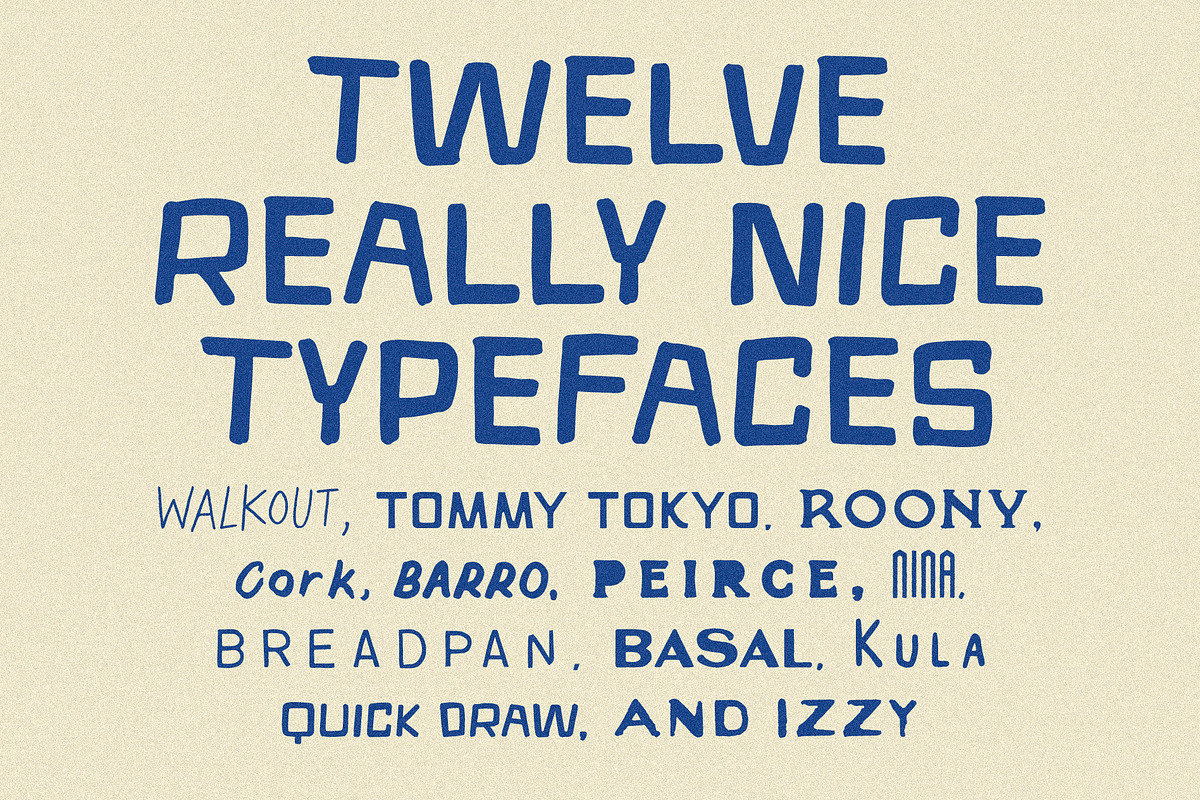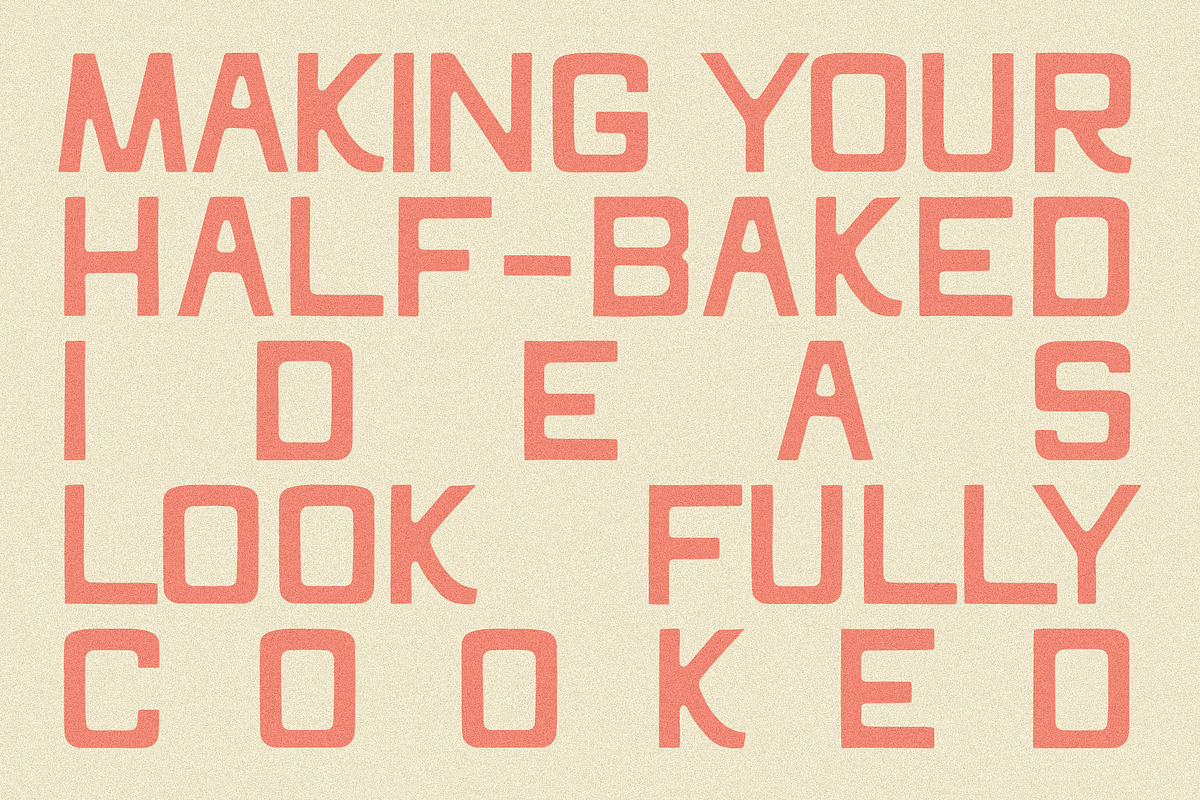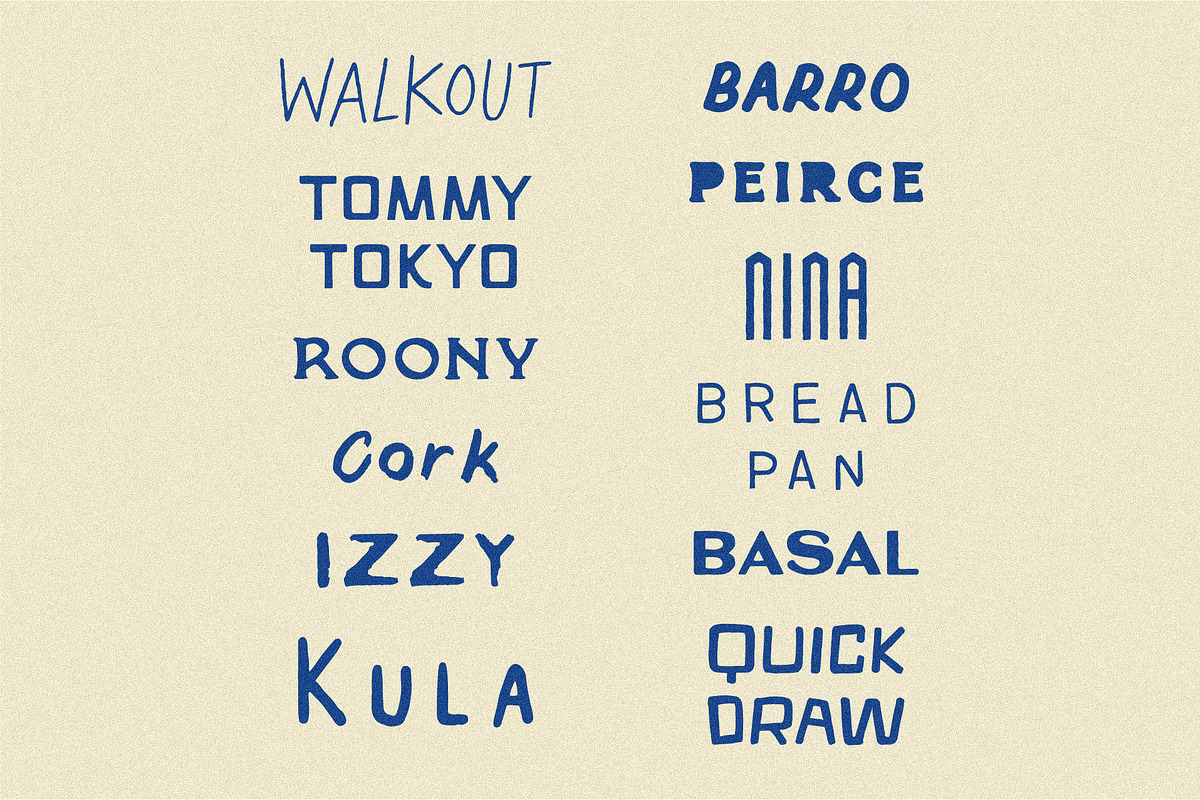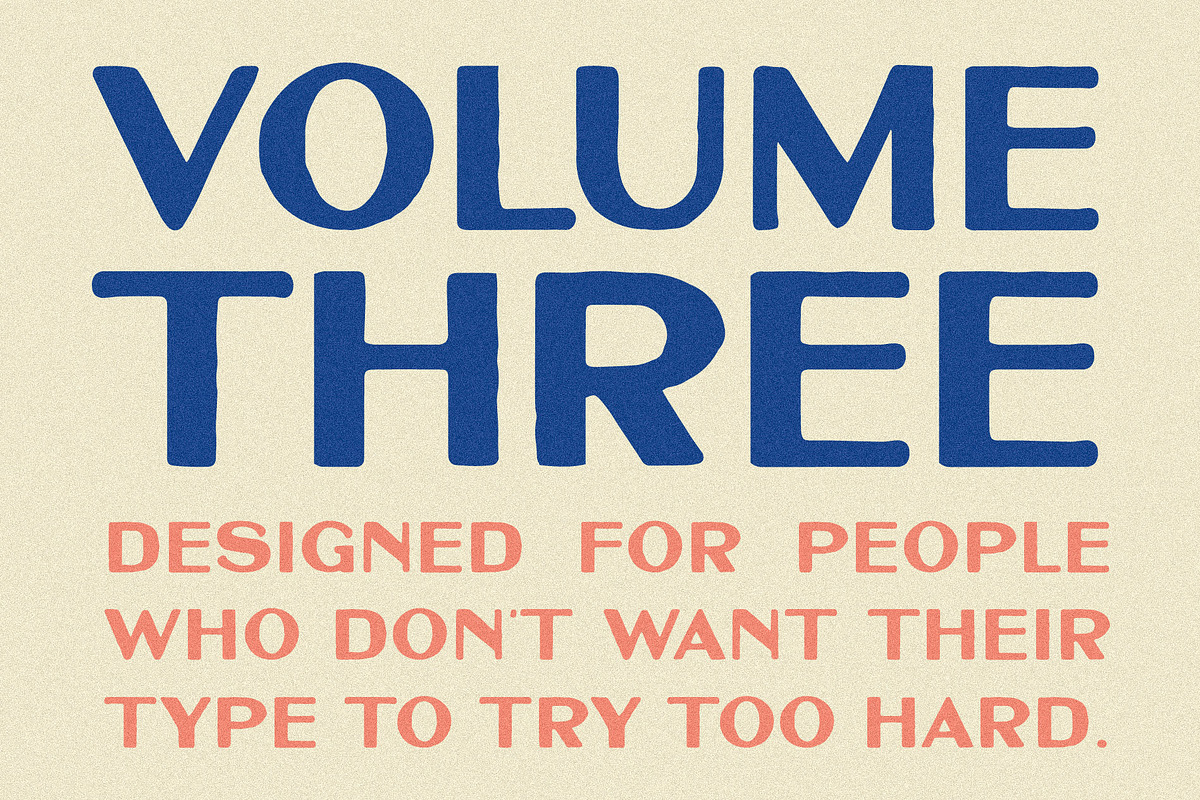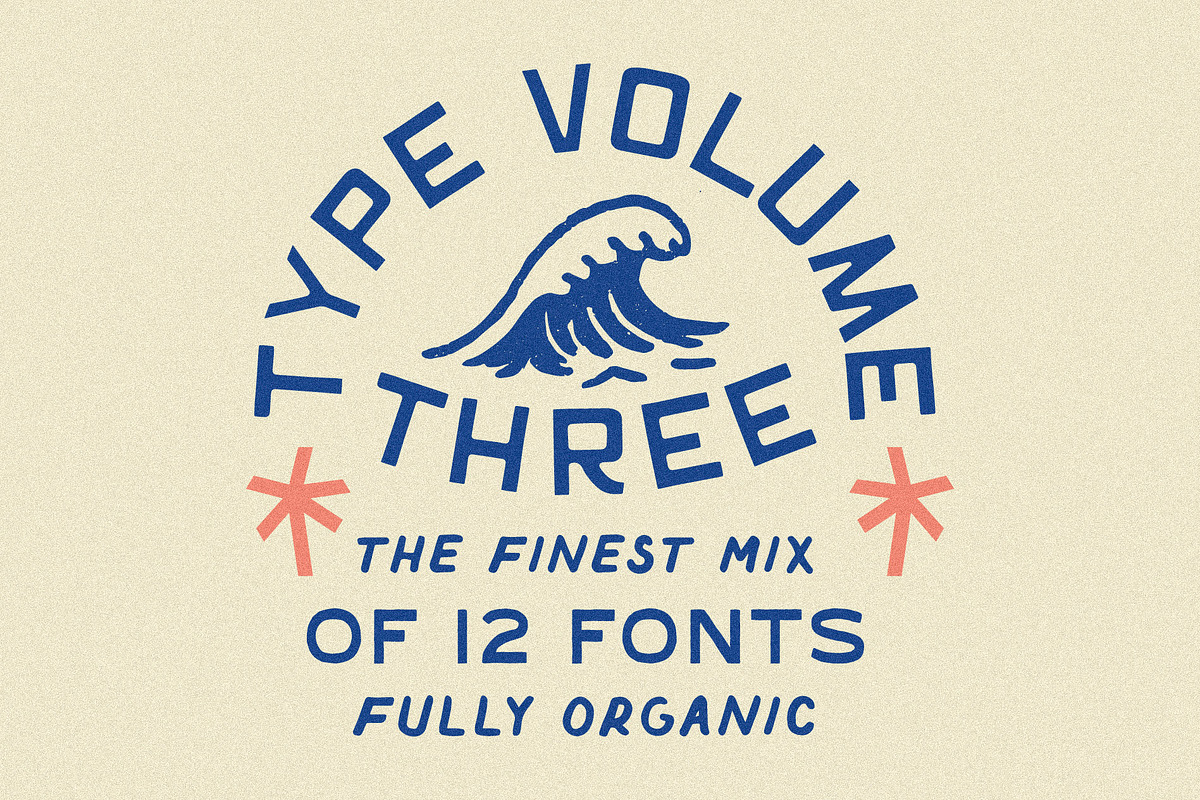
Type Volume Three
Volume 3 is the middle child — not here to impress anyone, just doing whatever it wants with phenomenal results.
Type Volume Three: Walkout, Roony, Cork, Peirce, Nina, Quick Draw, Tommy Tokyo, Barro, Bread Pan, Basal, Kula and Izzy Each font includes: Uppercase letters and digits Full punctuation Support for 20-69 languages.